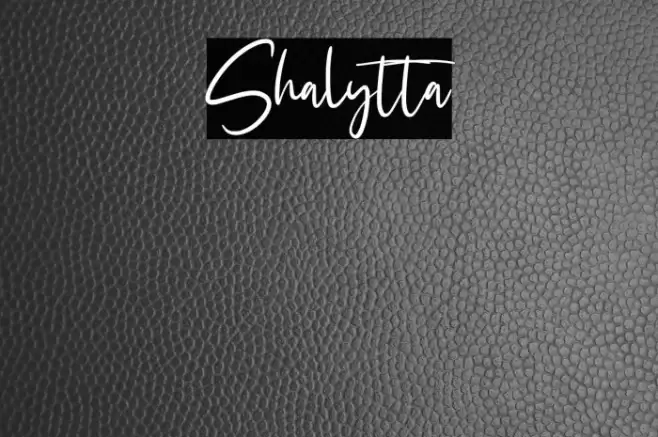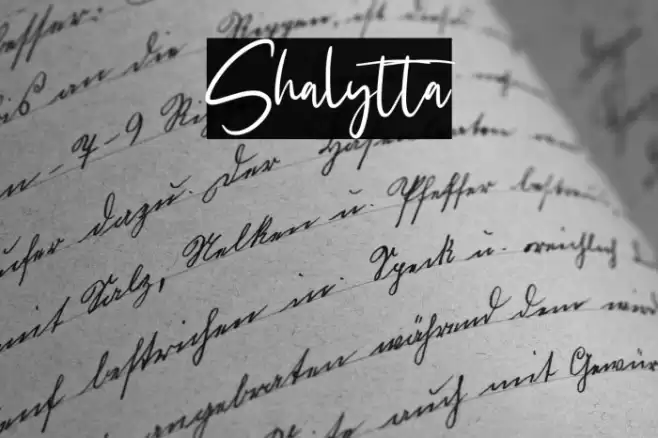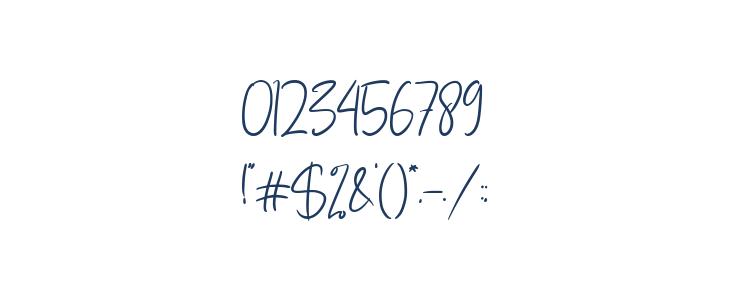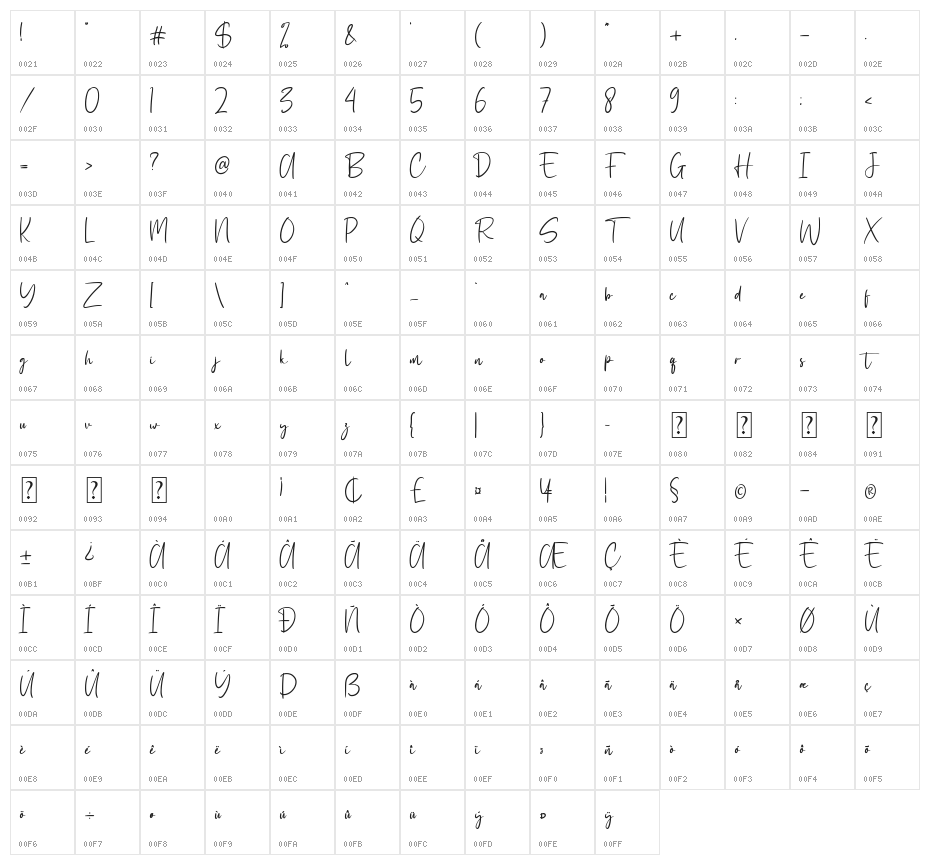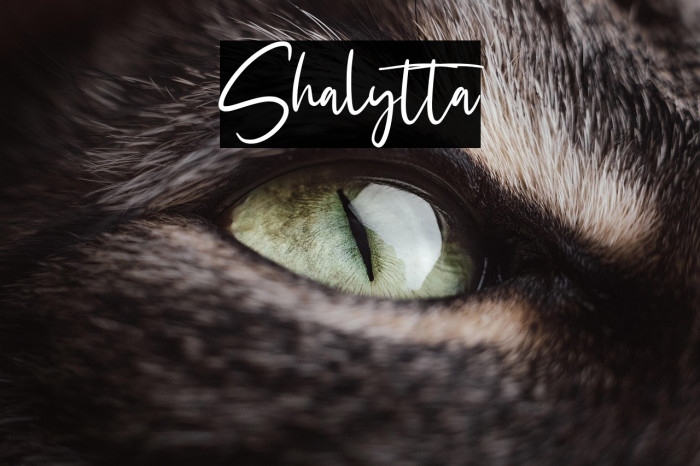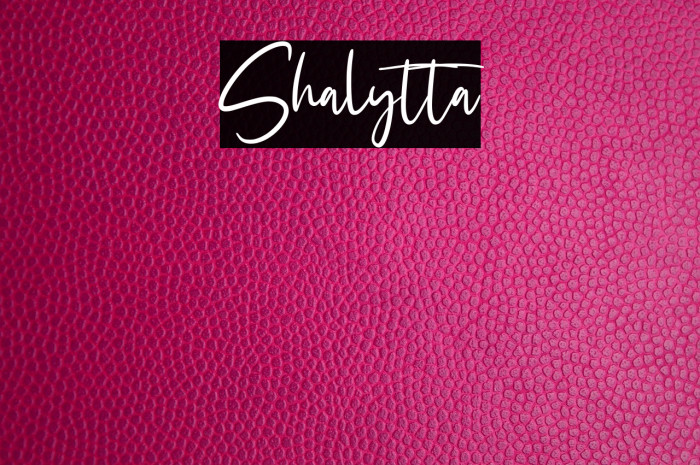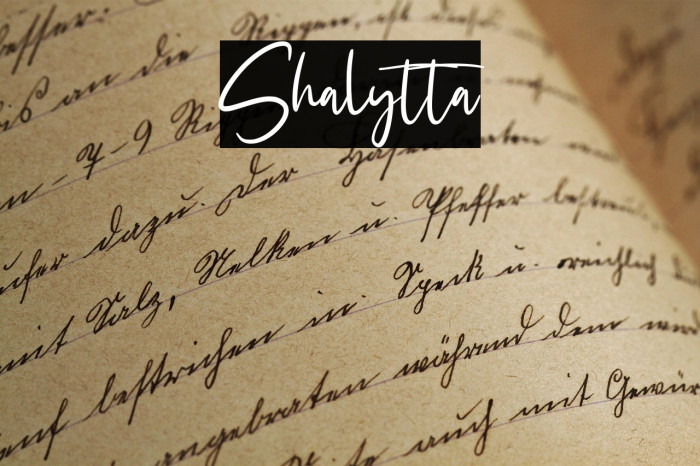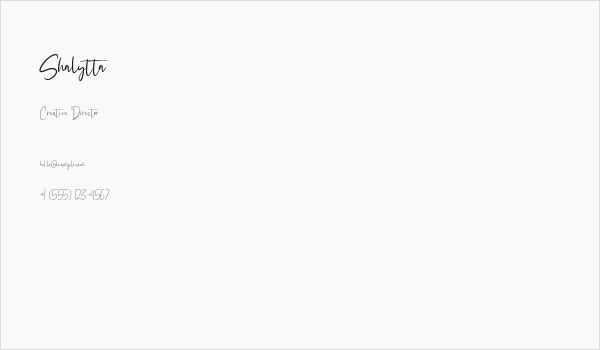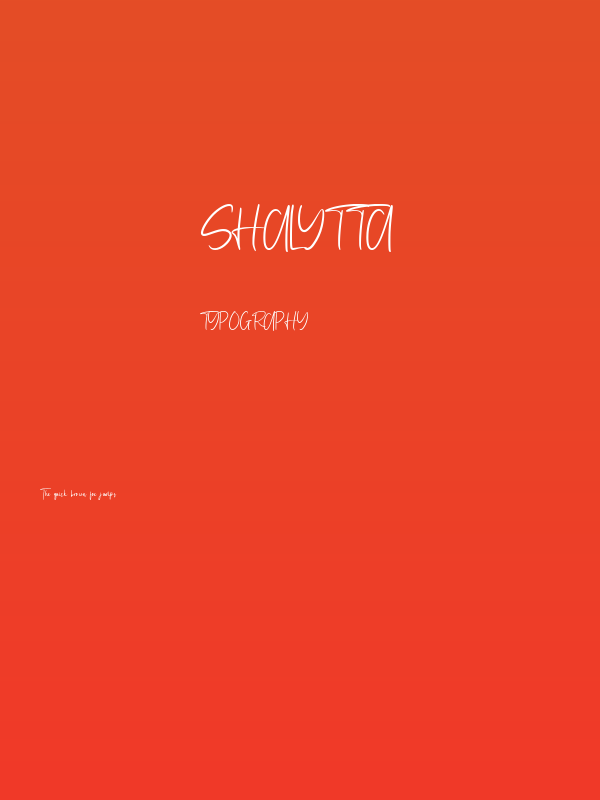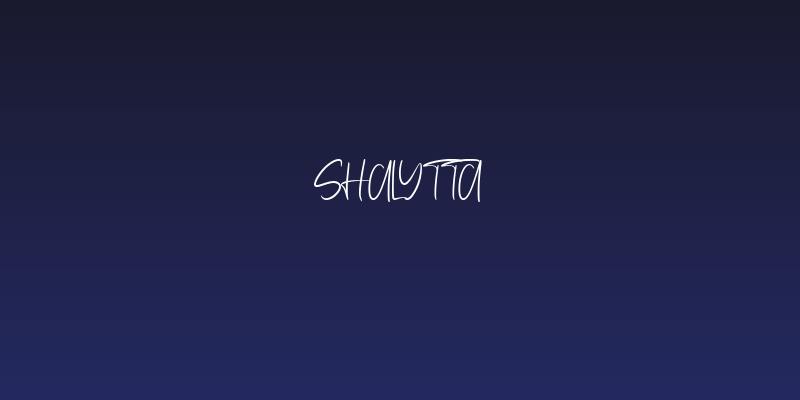
Shalytta Font
Shalytta Description
This font features a playful and casual handwritten style, characterized by its fluid and dynamic strokes. The uppercase letters are bold and slightly slanted, giving a sense of movement and energy. The lowercase letters maintain a consistent flow, with some letters extending below the baseline, adding to the font's informal charm. The numbers are clear and legible, matching the overall style with their slightly exaggerated curves. Special characters are thoughtfully designed to complement the alphabet, ensuring versatility in various design applications.
A playful, casual handwritten font with dynamic strokes and a fluid style from Regular fonts.
- Proposed Projects: Ideal for greeting cards, invitations, personal branding, and social media graphics.
- Overall Style: Casual, Playful
- Use Case: Logos, Headlines, Invitations